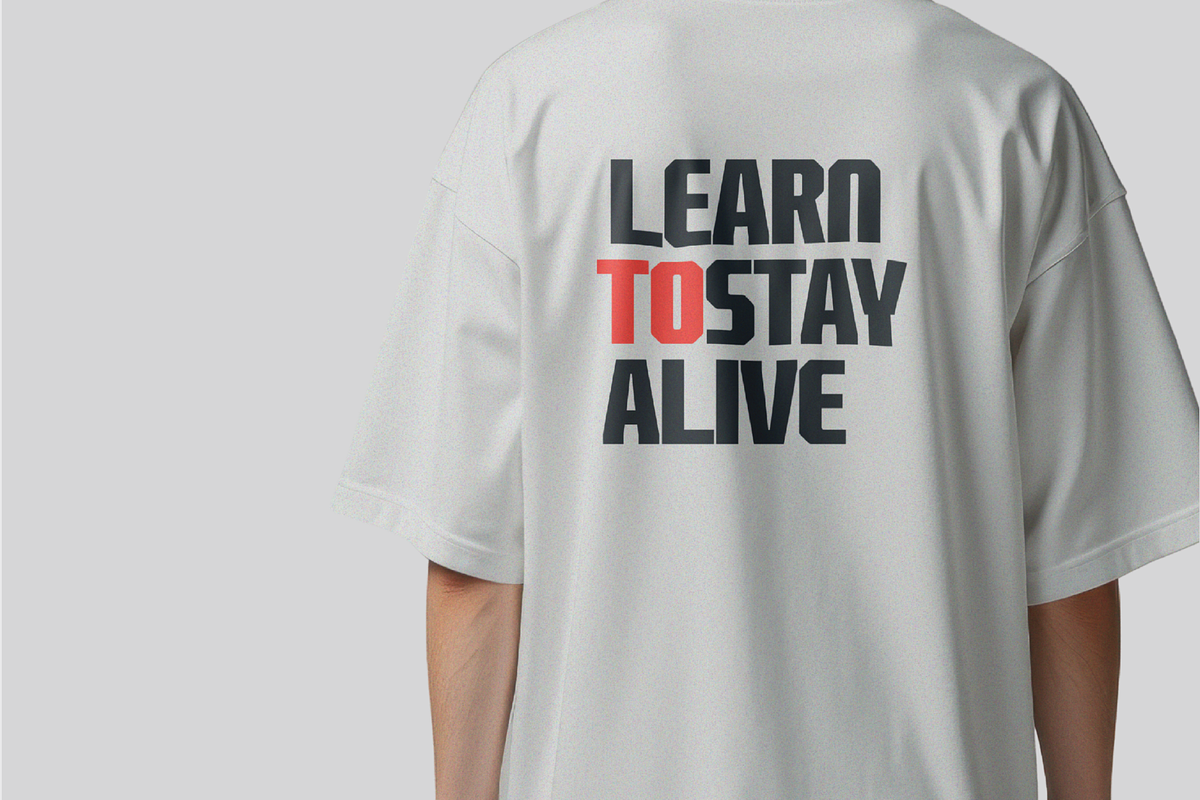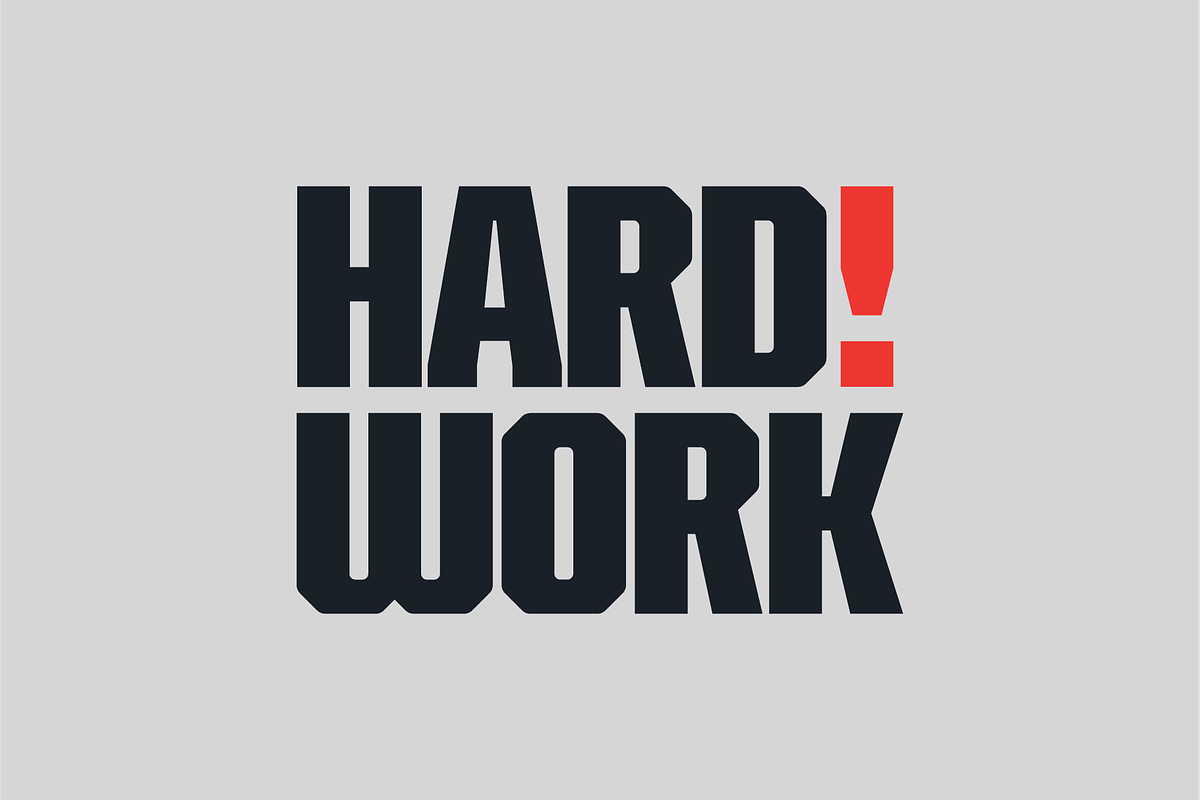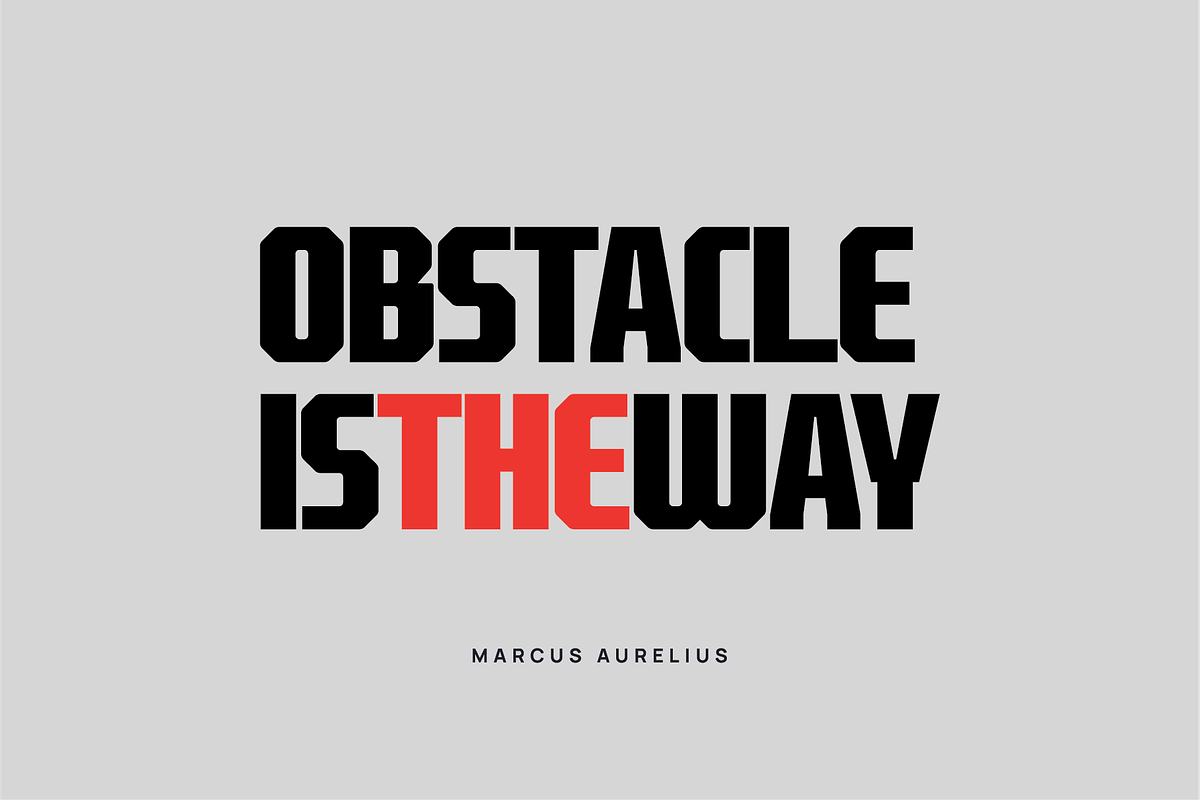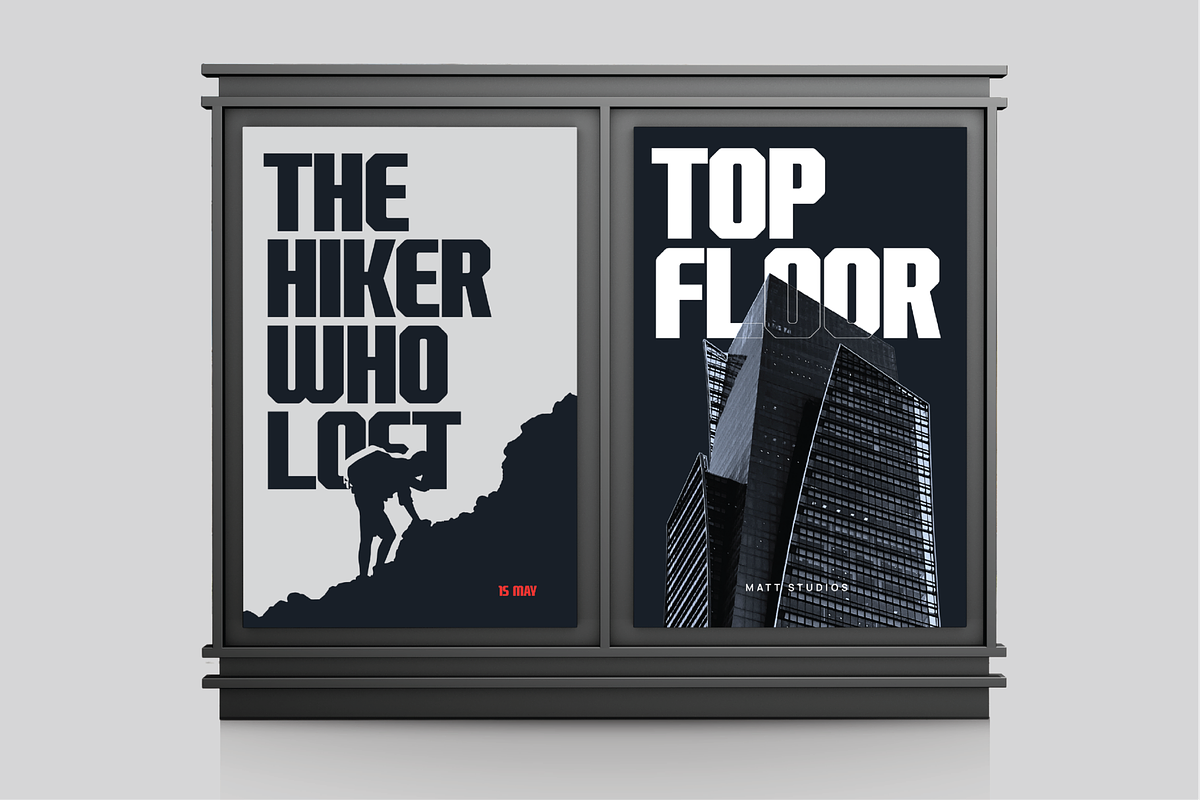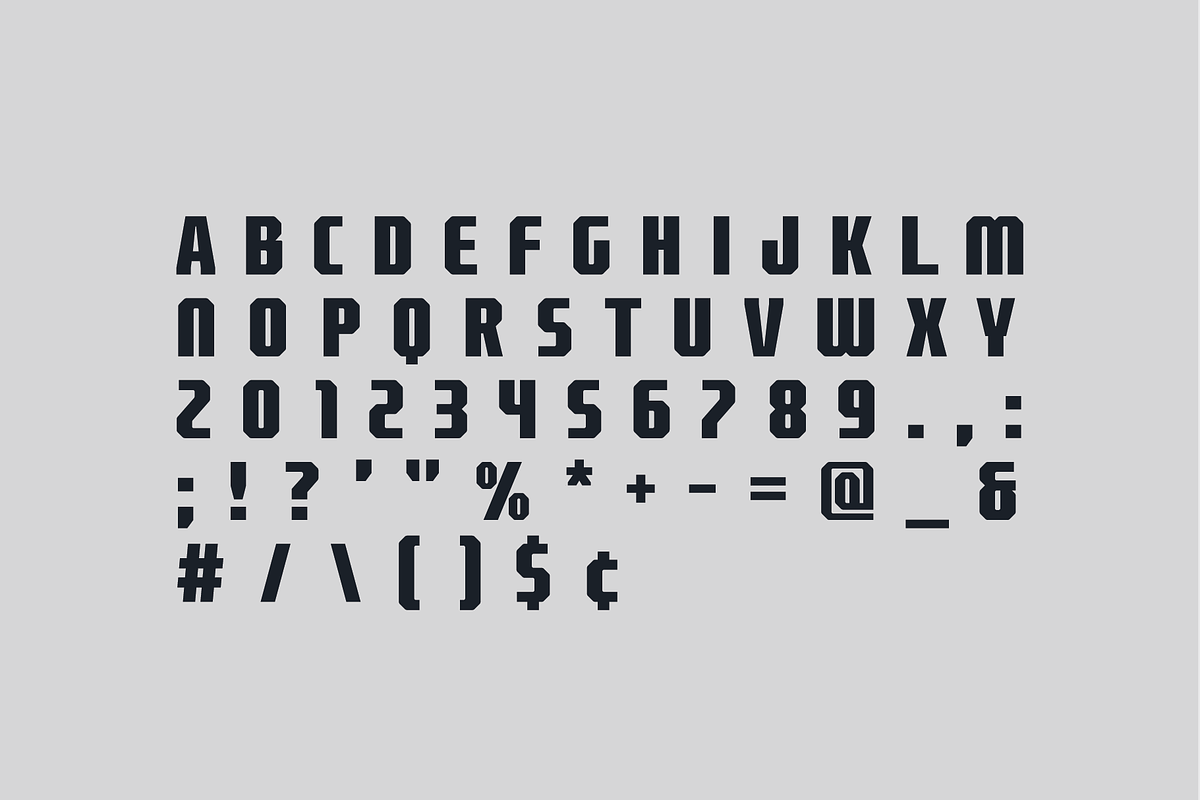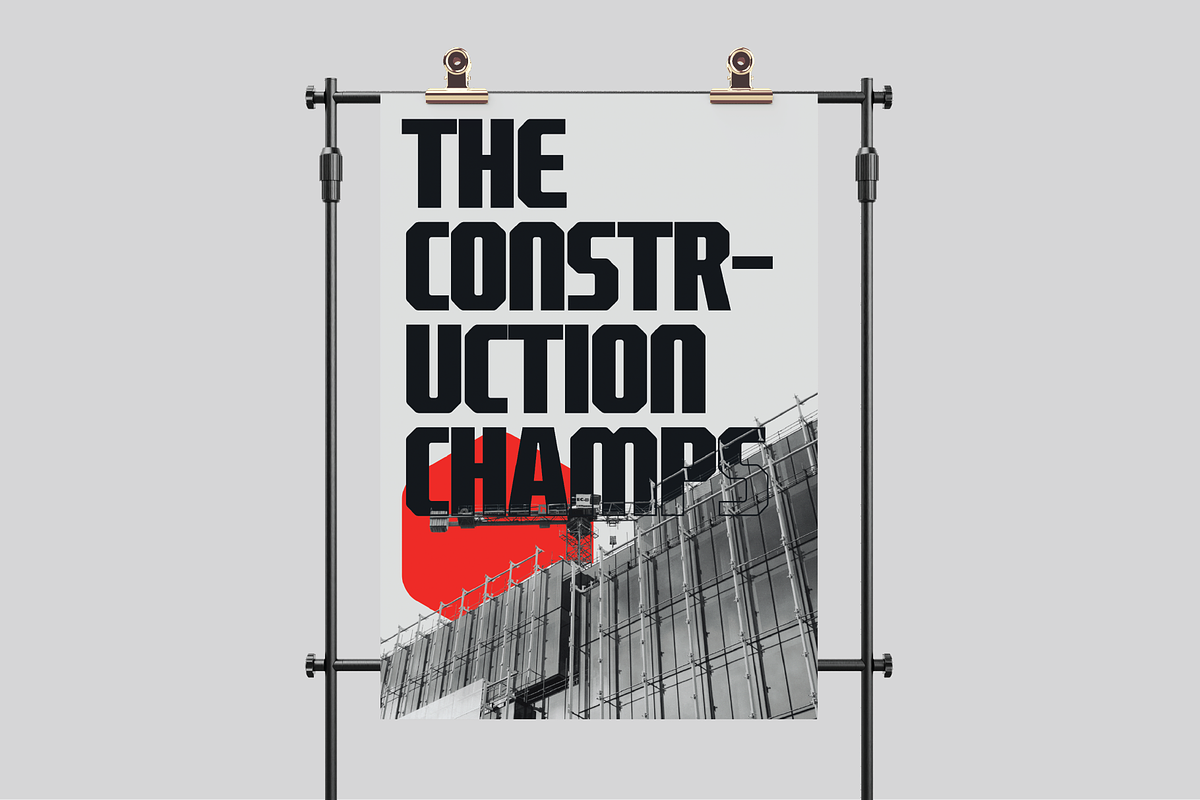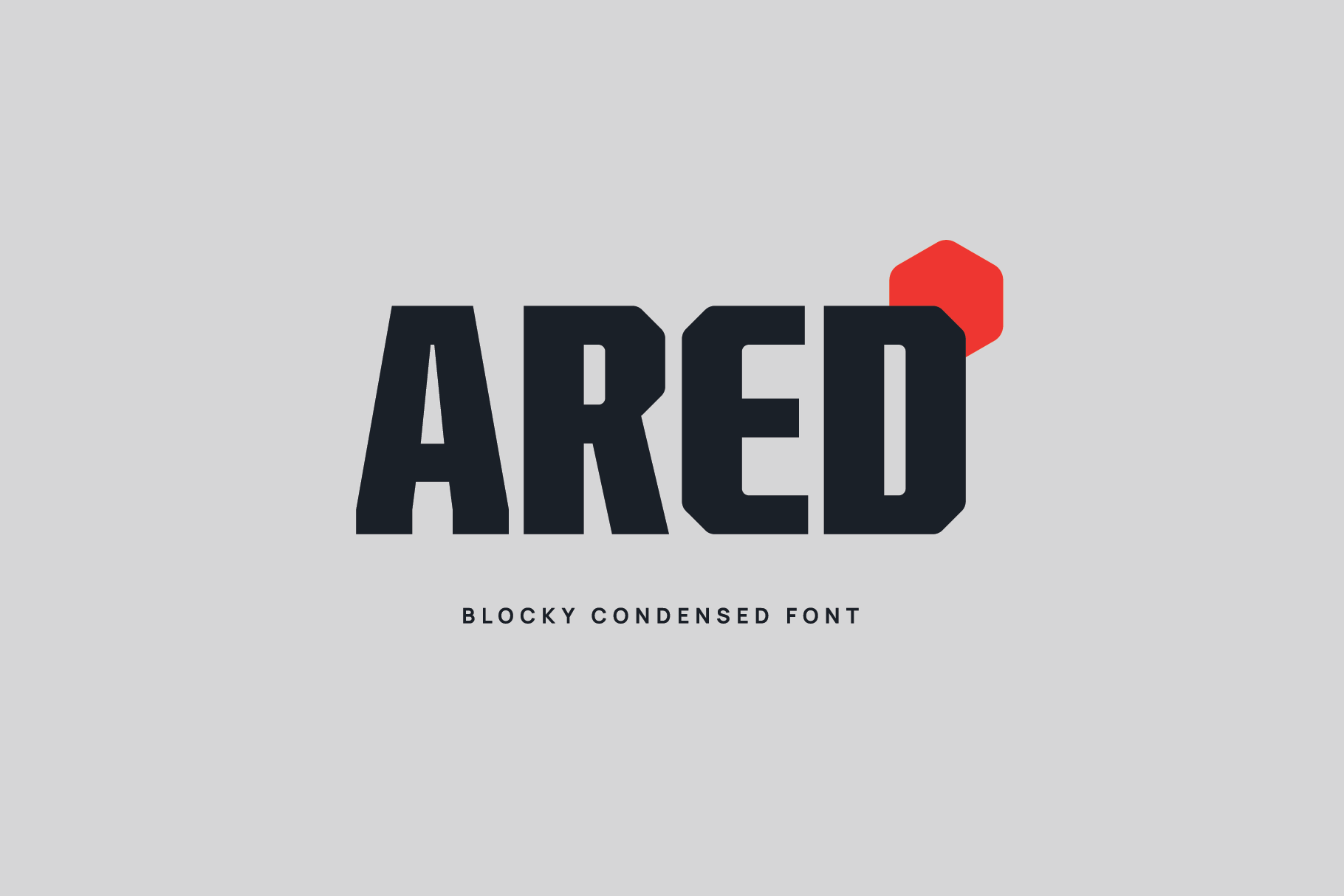
Ared-Blocky Condensed Display Font
Ared is a bold, blocky condensed display font designed for high-impact typography. Inspired by industrial aesthetics and hexagonal shapes that deliver a strong, aggressive visual presence. This blocky condensed font is perfect for logos, apparel, headlines, esports branding, gym graphics, album covers, posters, packaging, and social media content. This blocky, brutalist display font is built to stand out in bold branding and contemporary graphic design projects with its sharp geometric cuts and powerful condensed proportions.